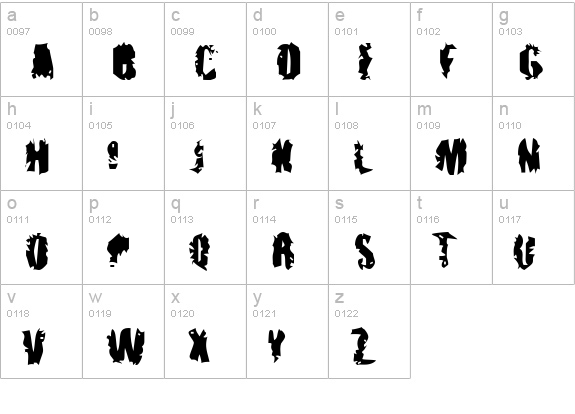
pUNKASSBLEED Font Details
Introducing the edgy and rebellious pUNKASSBLEED font, designed to make a bold statement in any project. This font features sharp angles, distressed textures, and a punk-inspired aesthetic that sets it apart from traditional typefaces. With its unique style, pUNKASSBLEED is perfect for adding a touch of attitude to posters, album covers, logos, and more. The best part? pUNKASSBLEED is completely free to download at FontsMarket.com. Embrace your inner punk rock spirit and elevate your designs with this striking and dynamic font. Let pUNKASSBLEED unleash your creativity and bring a touch of rebellious energy to your next project. Download now and start creating with this one-of-a-kind typeface!